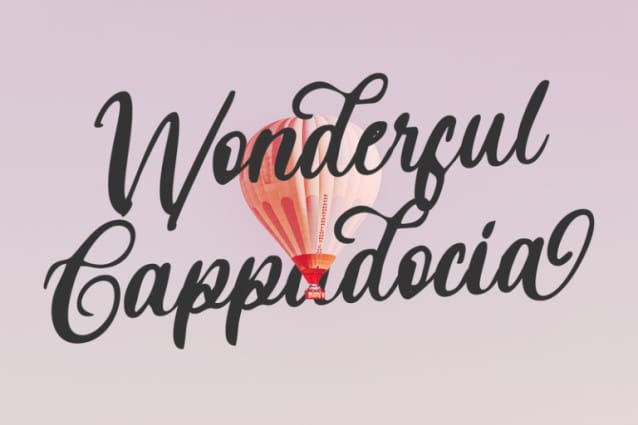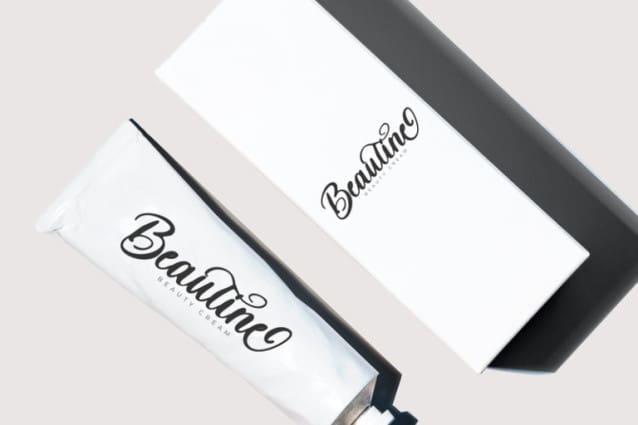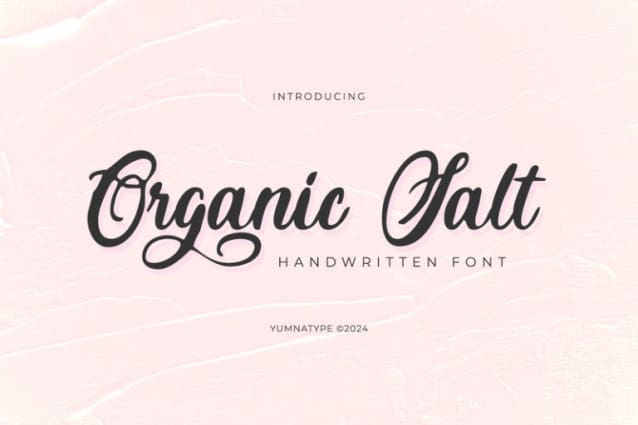
Organic Salt Font
Organic Salt Font is a captivating script font that beautifully emulates the natural fluidity and charm of handwriting. At its core, Organic Salt is designed to resemble casual handwriting, with each character flowing seamlessly into the next. The fairly thick weight of the font adds a comforting solidity, ensuring that every word feels grounded and substantial.
One of the most enchanting characteristics of Organic Salt is the addition of swinging elements on select letters. These subtle flourishes add a playful and whimsical touch to the font, evoking the spontaneity and charm of handwritten notes. Despite its handwritten appearance, OrganicSalt maintains excellent legibility, thanks to its consistent letter proportions and carefully crafted design.